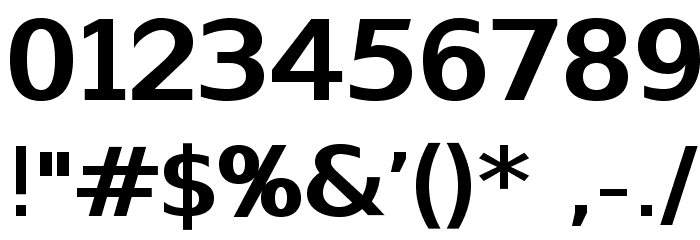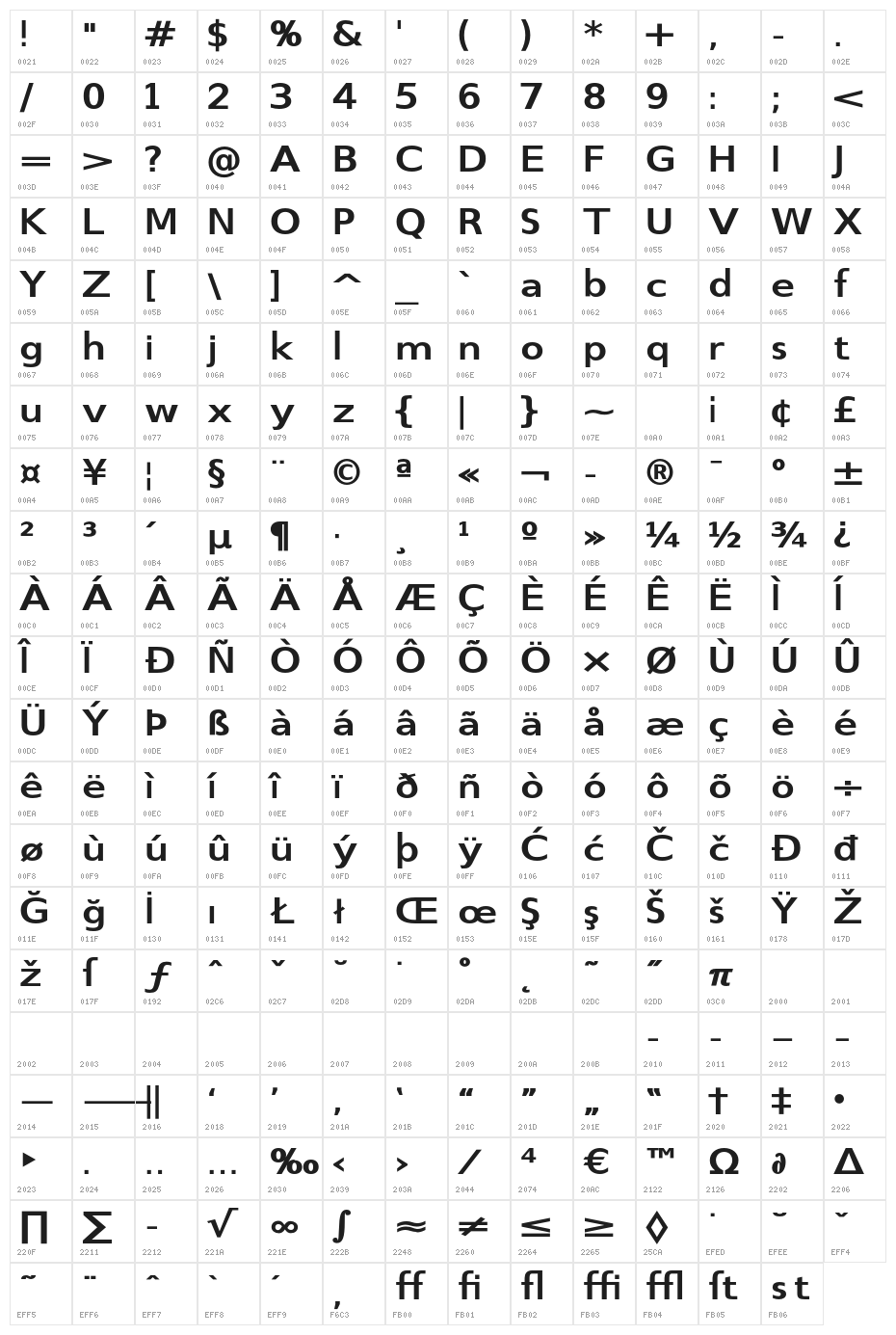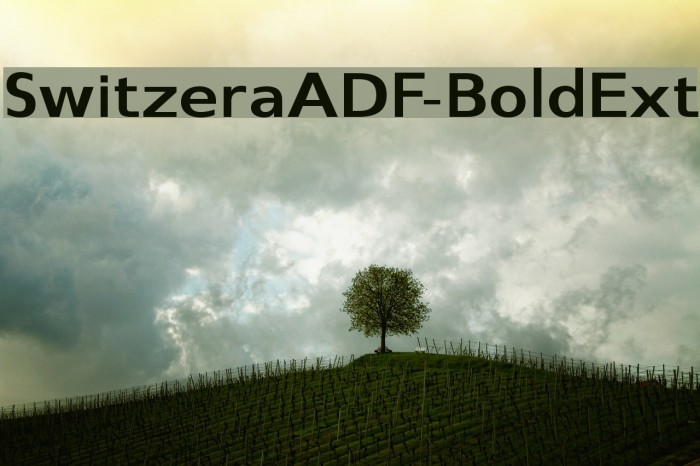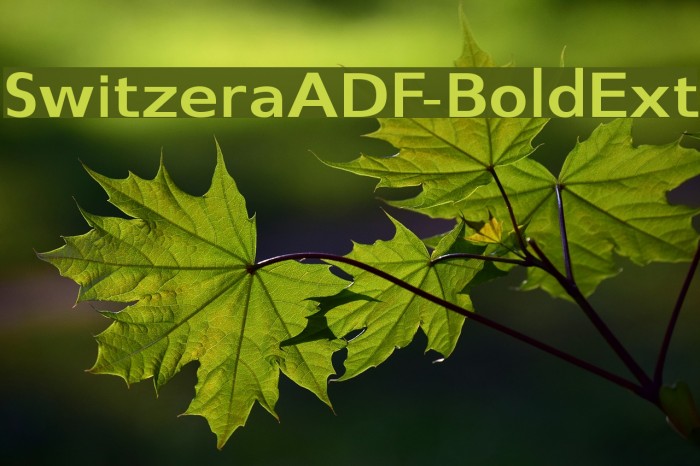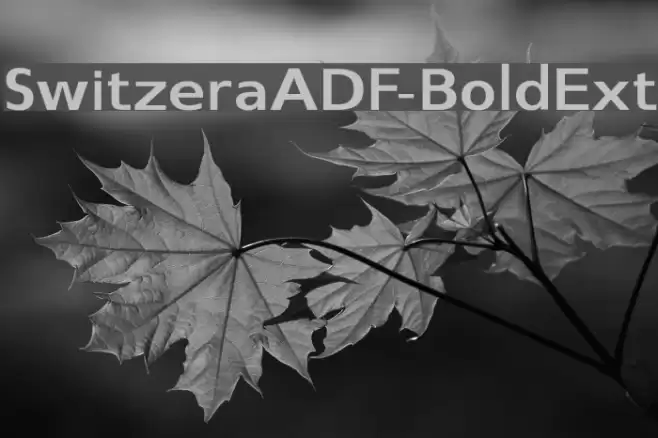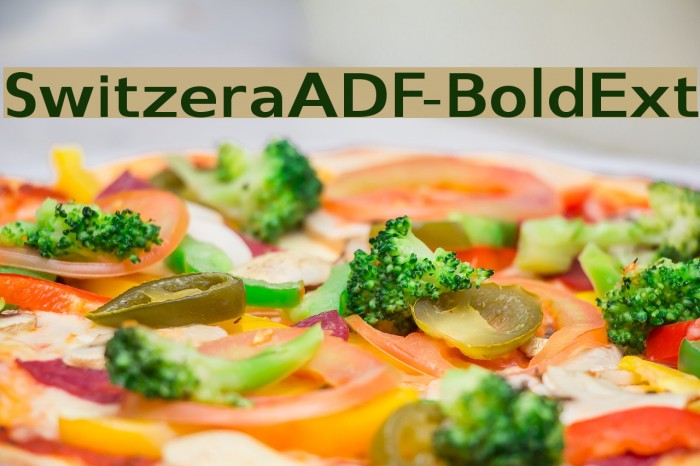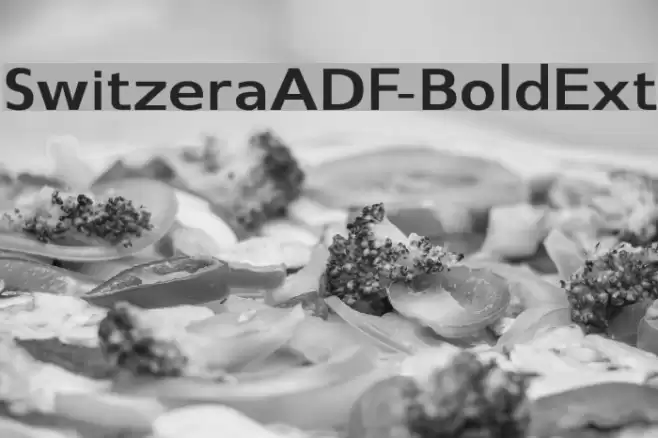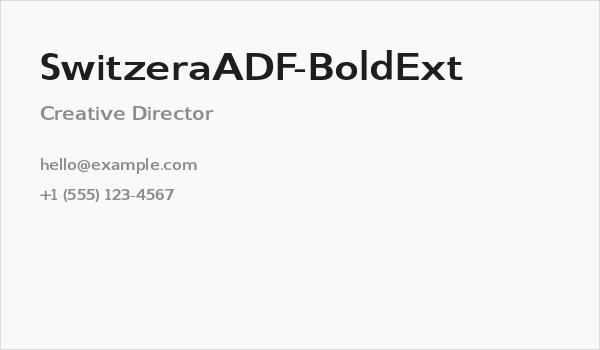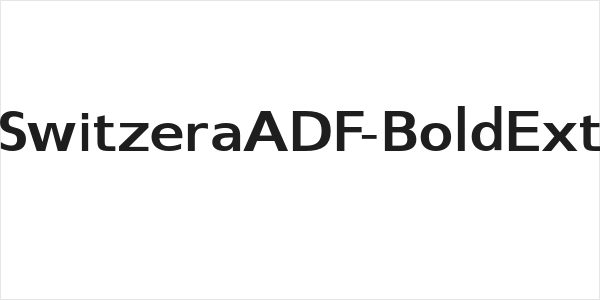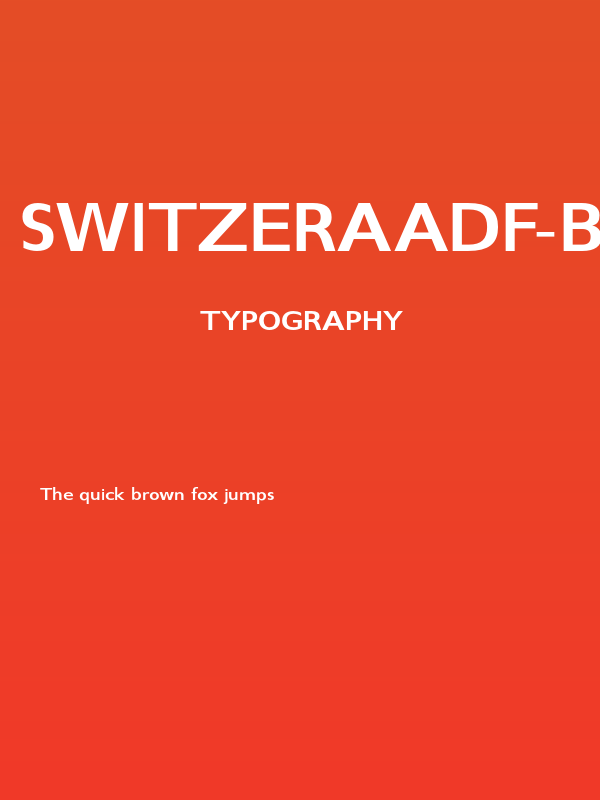
SwitzeraADF-BoldExt Font
SwitzeraADF-BoldExt Description
This font features a clean and modern sans-serif design with bold, extended characters. The uppercase and lowercase letters are well-balanced, offering a uniform appearance that enhances readability. The numerals are clear and distinct, making them suitable for various applications. Special characters are included, maintaining the font's cohesive style. The overall look is professional and versatile, ideal for both digital and print media. Its bold weight and expanded width make it stand out, while the normal character spacing ensures legibility across different sizes.
| Proposed Projects | Ideal for branding, advertising, headlines, and digital interfaces where a strong, modern presence is required. |